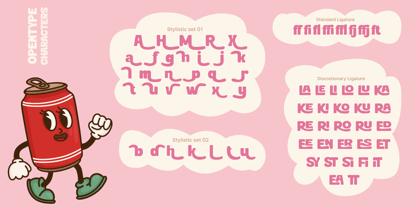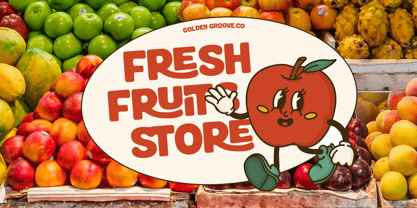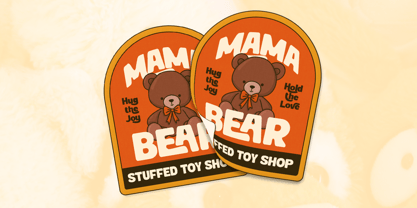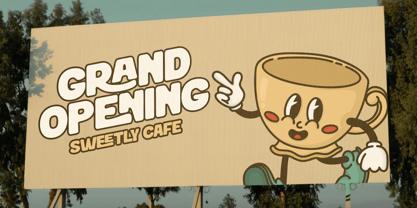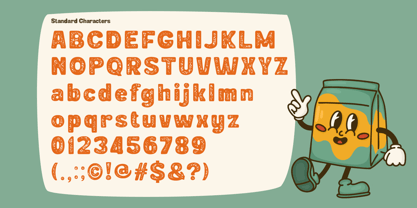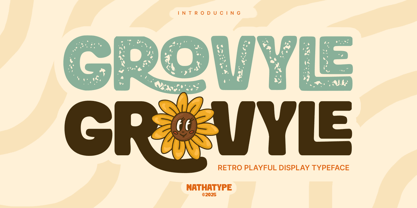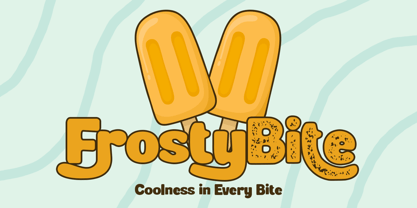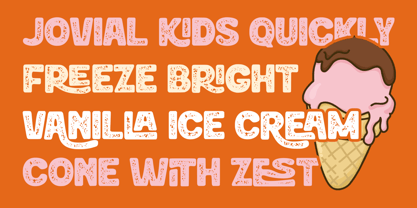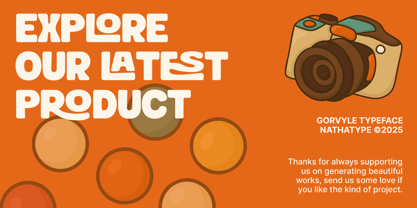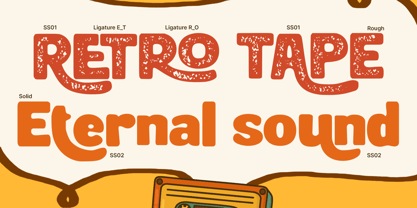
Grovyle
by Nathatype
The Grovyle Font Family was designed by Donis Miftahudin and published by Nathatype. Grovyle contains 2 styles and family package options. More about this family
Grovyle is a bold retro display font that brings classic vintage aesthetics into modern design. Inspired by retro signage and old-school typography, Grovyle combines nostalgic charm with a powerful presence, making it perfect to create attention and personality. This font comes in two distinct styles – Solid and Rough, giving you the flexibility to create both clean, bold designs and authentic, textured looks. With its strong letterforms and bold weight, Grovyle ensures your message looks confident and memorable. In addition, enjoy the features here. Features: Ligatures Stylistic Sets Multilingual Supports PUA Encoded Numerals and Punctuations Grovyle fits in branding, packaging, quotes, logos, posters, and many more designs. Find out more ways to use this font by taking a look at the font preview. Thanks for purchasing our fonts. Hopefully, you have a great time using our font. Feel free to contact us anytime for further information or when you have trouble with the font. Thanks a lot and happy designing.
Designers: Donis Miftahudin
Foundry: Nathatype